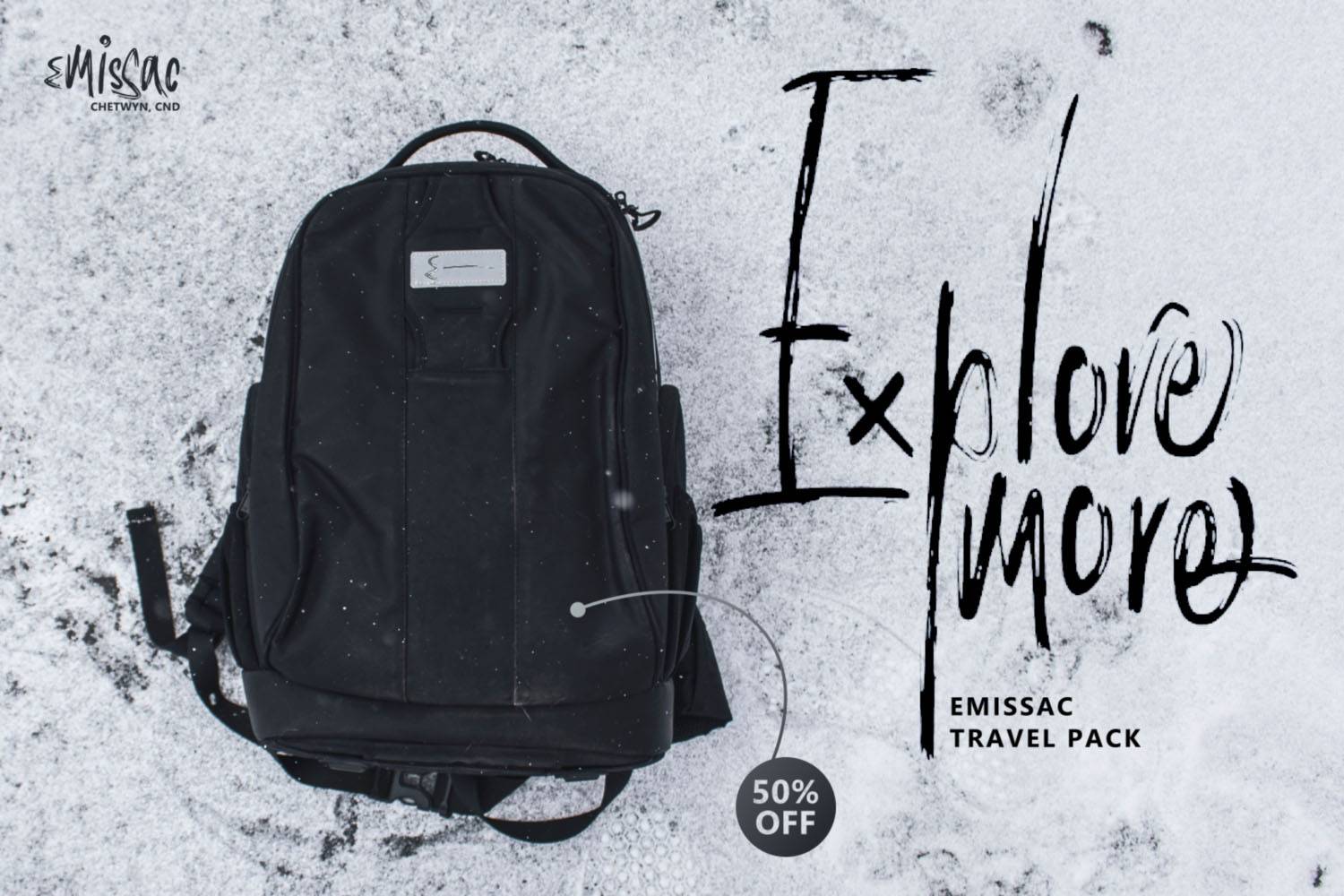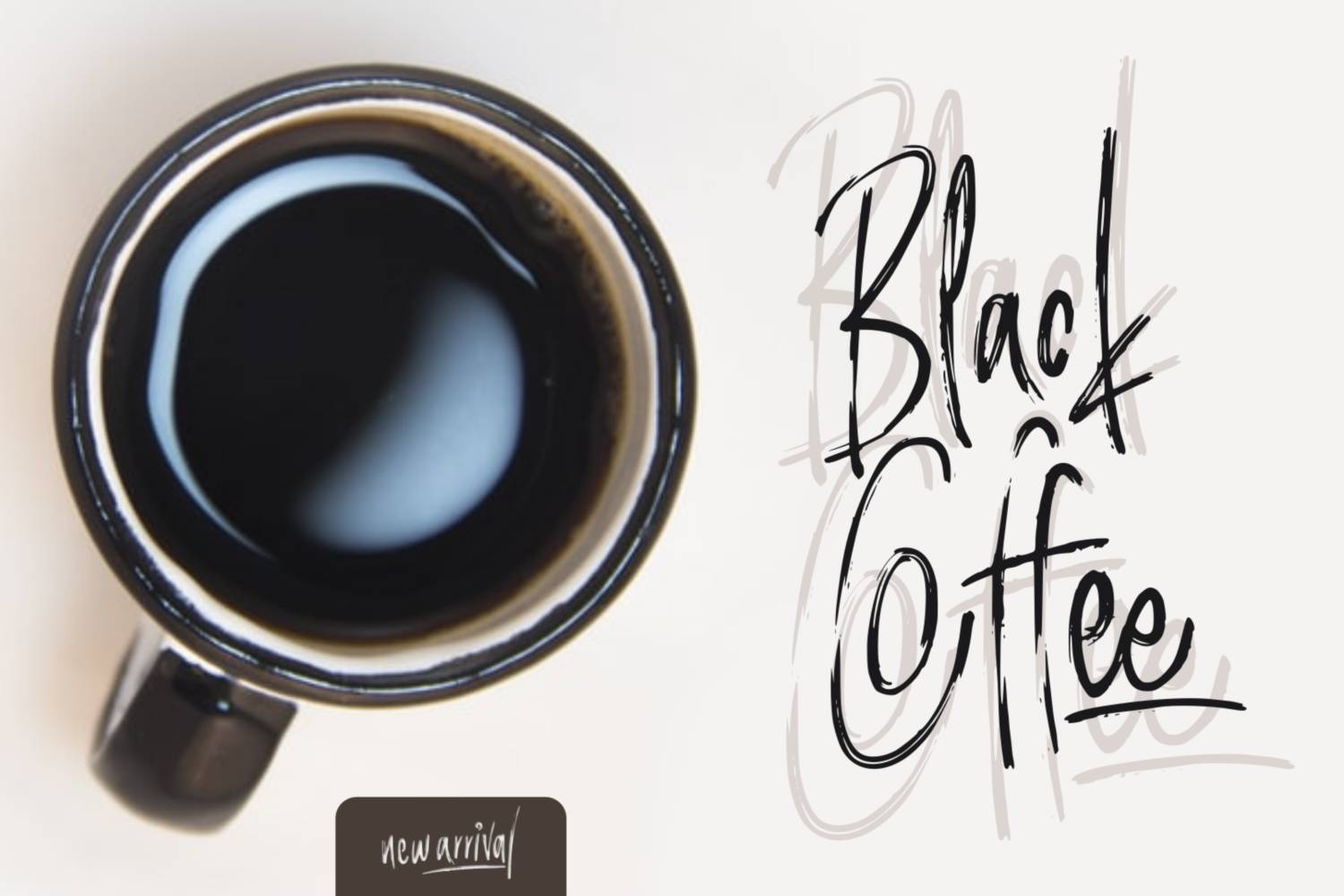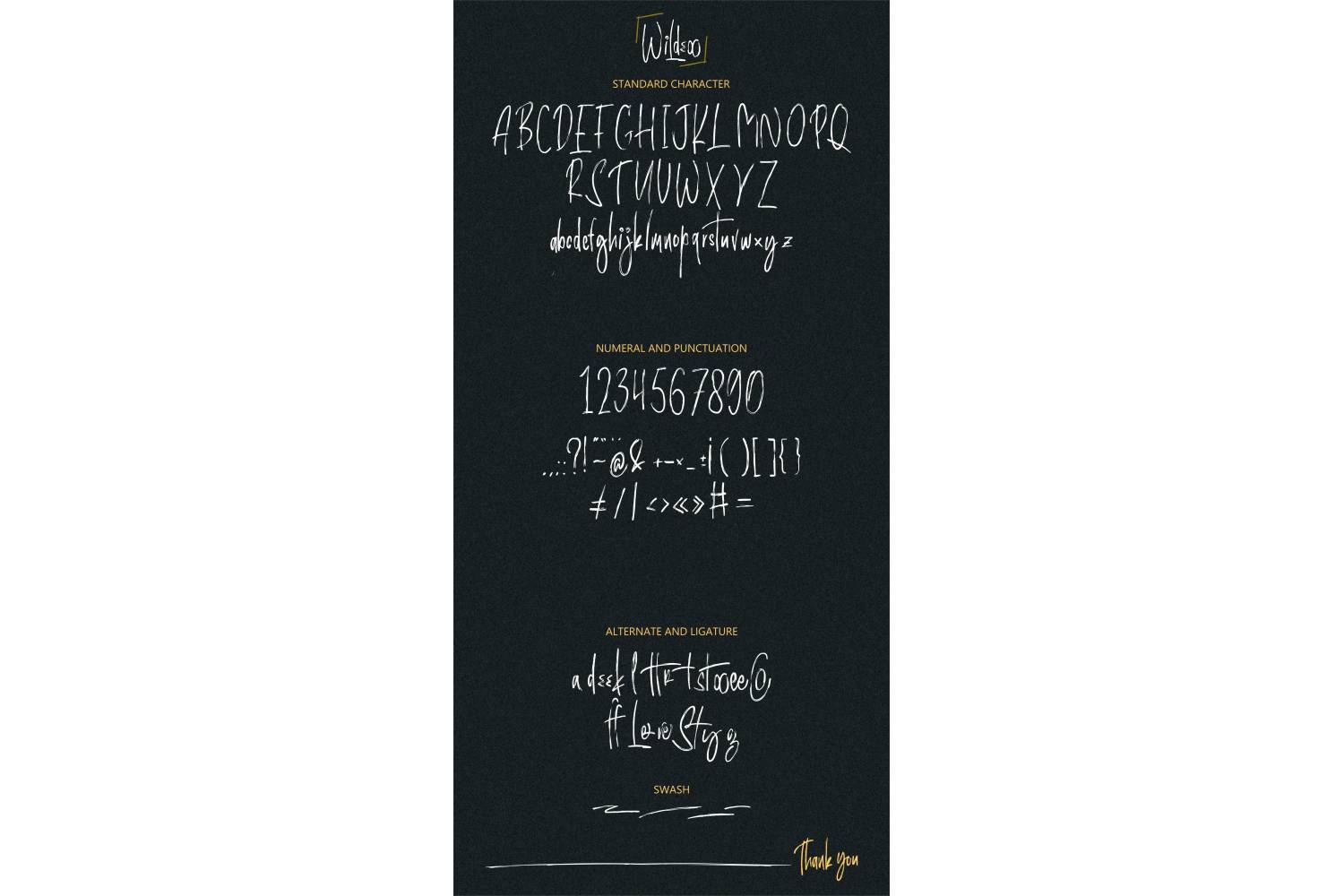
Wildeoo is a tall, narrow handwritten font with a playful and slightly rough texture that gives it a casual, artistic feel. Its delicate, sketch-like strokes and uneven lines create a unique, expressive look perfect for creative projects, informal branding, or eye-catching headlines that want to convey personality and spontaneity. This font works well where a distinctive, hand-crafted style is desired to add charm and individuality.
Wildeoo Font
About Wildeoo Font
| Font family | Wildeoo Font |
| Designer | Inspiratype |